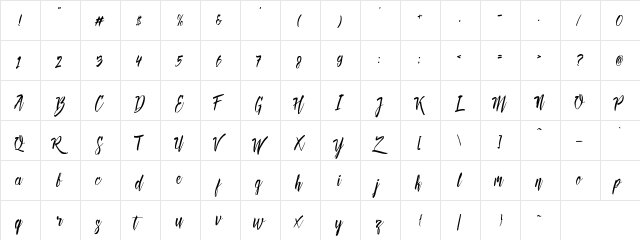
Deadhead Brush Regular Font Preview
Deadhead Brush Regular
Deadhead Brush Regular Font Details
| Foundry | Twicolabs Fontdation |
| Designer | Twicolabs Fontdation |
Design Context for Deadhead Brush Typeface
Deadhead Brush flows with the natural rhythm of handwritten lettering, making it ideal for designs that call for warmth and personal expression.
Font Pairing: Combine Deadhead Brush with a simple geometric sans for maximum contrast — the tension between flowing curves and clean structure is a classic typographic pairing.
Pro Tip: Pair Deadhead Brush with a clean sans-serif for supporting text. The contrast between fluid script and geometric structure creates an elegant typographic hierarchy.